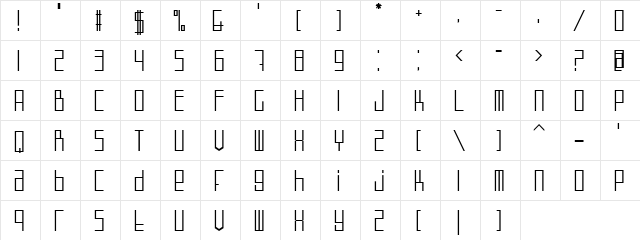
BN Defect Regular
Design Context for BN Defect Typeface
BN Defect offers clean, dependable letterforms without strong stylistic allegiance, making it a practical choice for designers who need flexibility.
Pro Tip: Use BN Defect in both headline and body roles to test its range before committing to a single application.